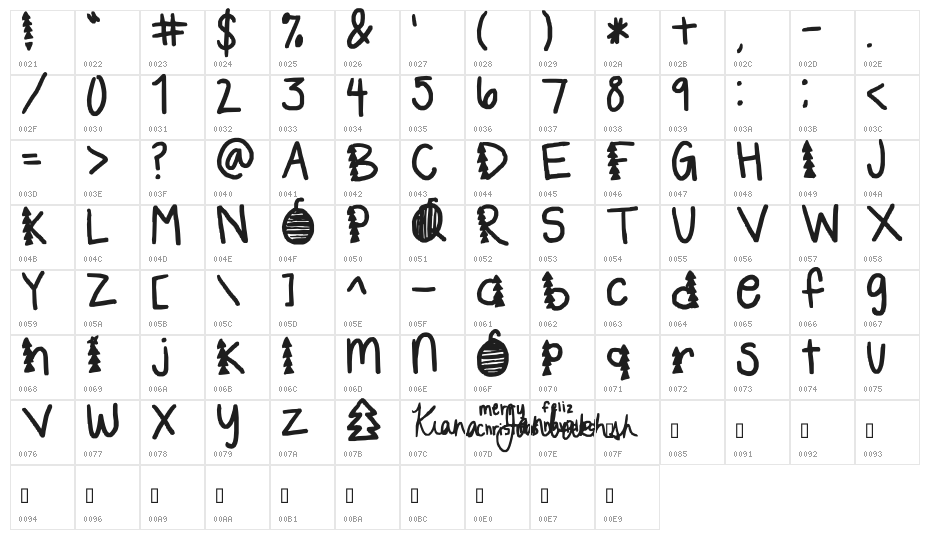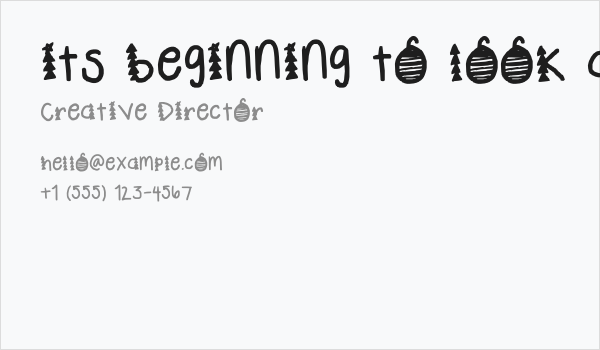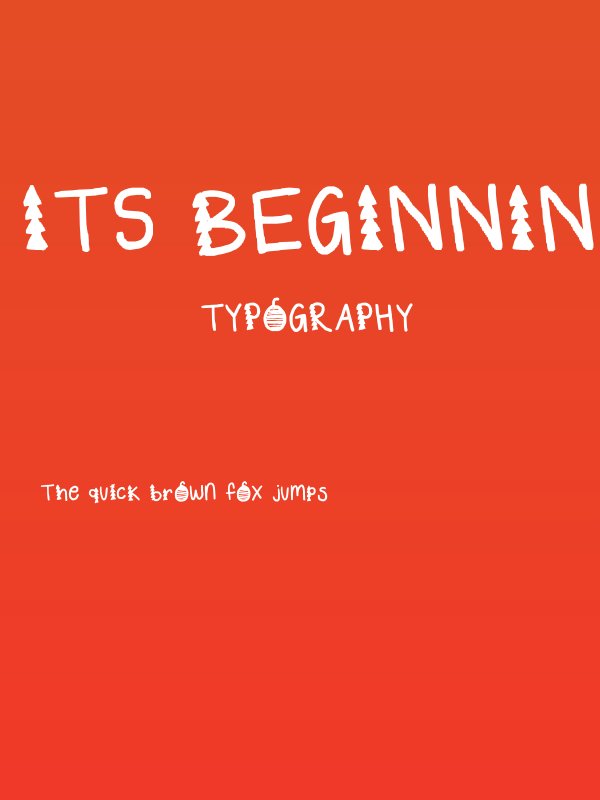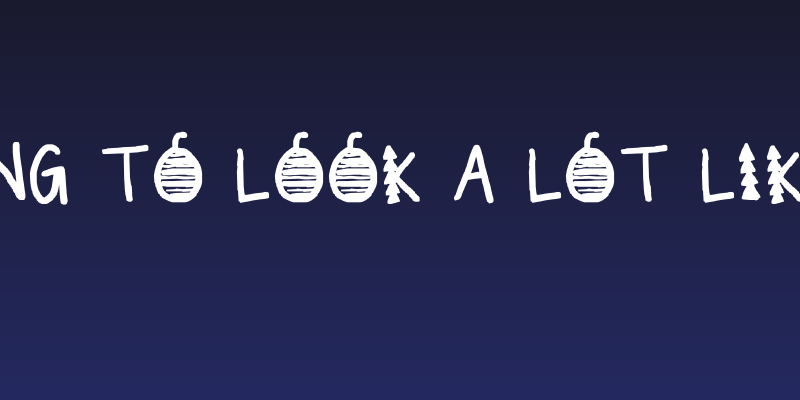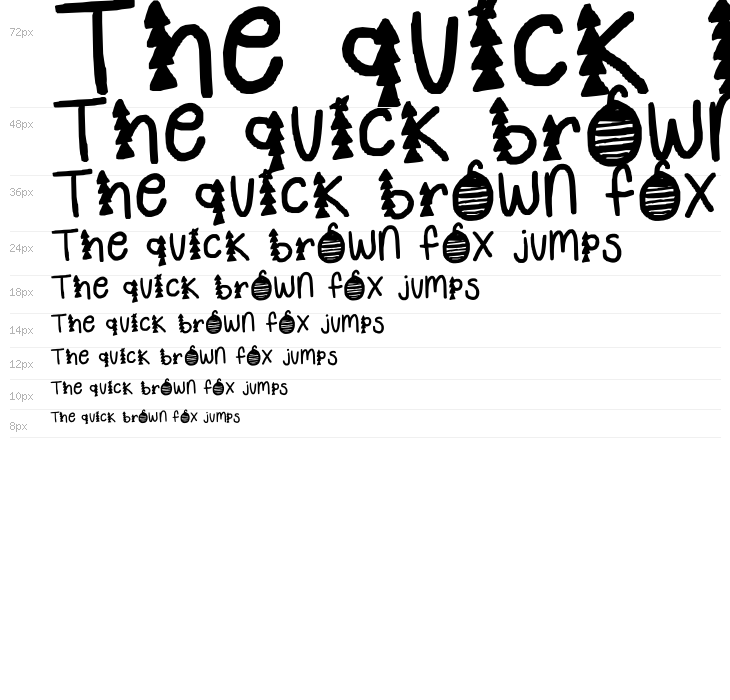
its beginning to look a lot like christmas Font
its beginning to look a lot like christmas Description
This playful and festive font features a whimsical design with elements reminiscent of Christmas trees integrated into the letterforms. The uppercase letters are bold and decorative, with some characters incorporating tree-like shapes, adding a unique holiday flair. The lowercase letters maintain a similar style, with a slightly more casual and handwritten appearance. Numbers and special characters follow the same festive theme, making this font perfect for seasonal projects. The overall look is fun and eye-catching, ideal for capturing the spirit of the holiday season.